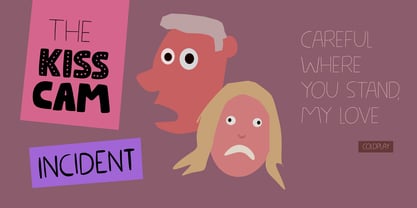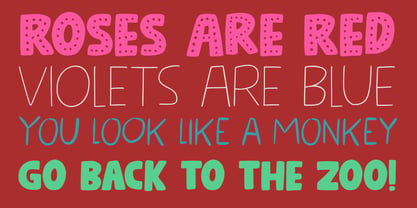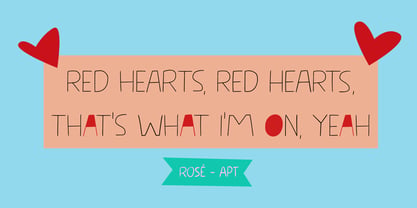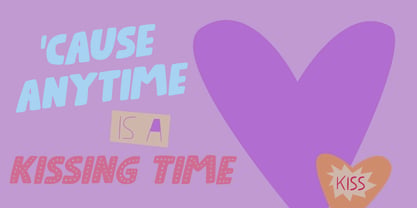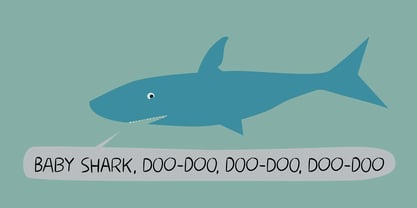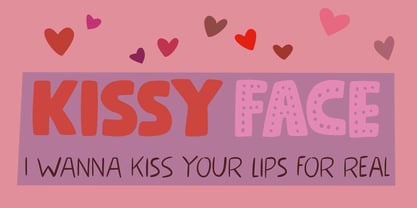
Kissy Face
by Hanoded
The Kissy Face Font Family was designed by David Kerkhoff and published by Hanoded. Kissy Face contains 10 styles and family package options. More about this family
Music-wise, this year has been the ‘APT’ year. My daughter loved that song so there was no escaping from Rosé and Bruno. I decided to name this font after a line in the lyrics and if you have kids, you will know which one that is. Kissy Face is a nice, handmade font family. It consists of 5 separate fonts - in regular and Italic styles - that work together like the above mentioned artists. So, start singing and use this lovely font family for your projects!
Hanoded is run by Dutchman David Kerkhoff. His fonts are a mishmash of styles, as he just creates whatever pops into his head. You will find a lot of brush fonts in his collection, as his favourite tools are brushes and Chinese ink, with cartoon style fonts and script fonts complementing his repertoire. Aside from making fonts, David occasionally guides tours in far-flung places, renovates his '30's house and tries reasoning with his wife and (teenage) kids. Not an easy task!